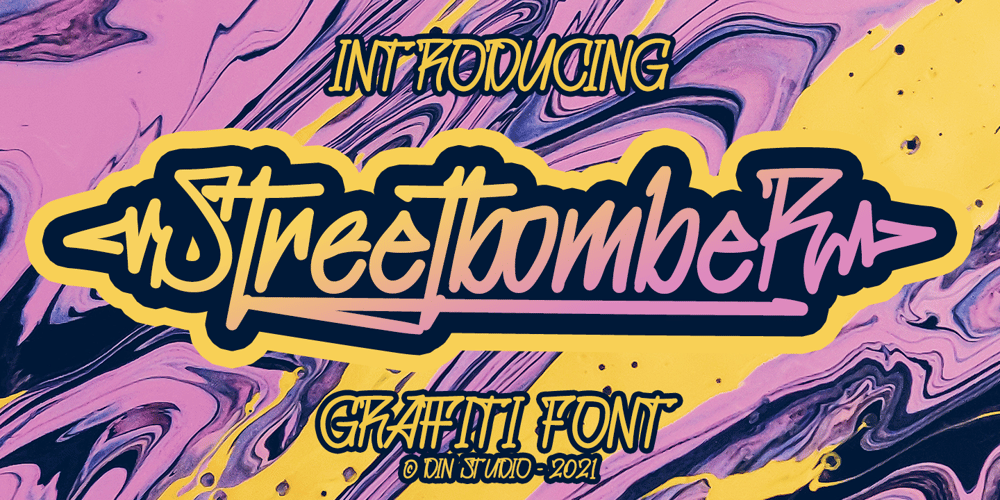
Streetbomber Font Family was designed by Donis Miftahudin and published by Din Studio. Streetbomber contains 1 styles and family package options. Hi, Everyone! Want to make your branding bold with graffiti font? Then we’ve got the font for you!Introducing Streetbomber- A Grafiti FontStreetbomber is an urban font that echoes the classic tag lettering style. Use this cool and artistic graffiti font to breathe a street life vibe into your projects. This font is perfect for logos, printed quotes, cards, packaging, website or social media branding, and many more!Streetbomber includes multilingual options to make your branding reach a global audience.Features: Alternates Standart Ligatures Stylistic Set Multilingual Support PUA Encoded Numerals and Punctuation Thank you for downloading premium fonts from Din Studio